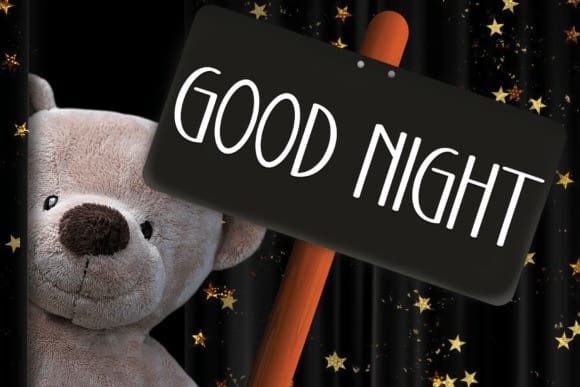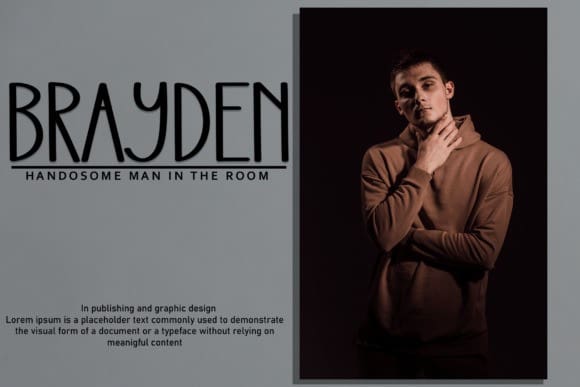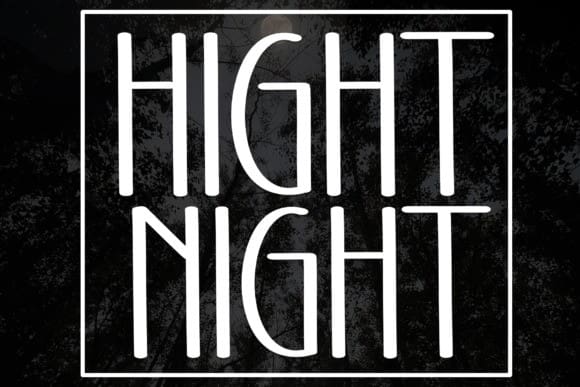
Hight Night Font
Hight Night Font is a sweet and friendly display font. Cute and fun, this font is ideal for writing wedding invitations, cards, or any other design that might need a fun touch!